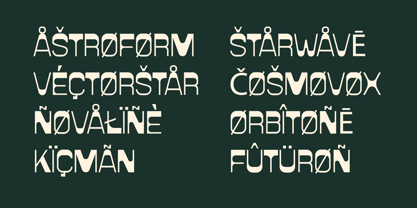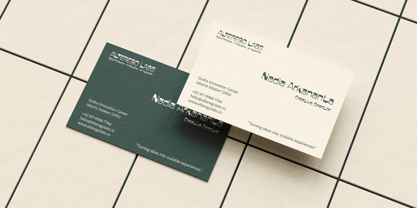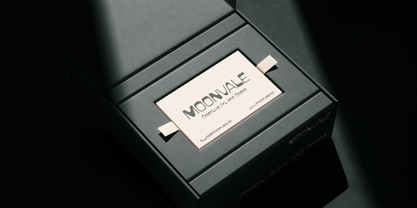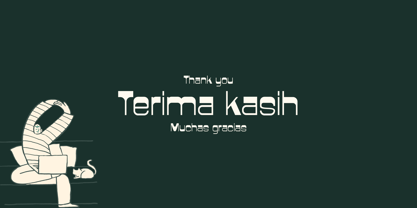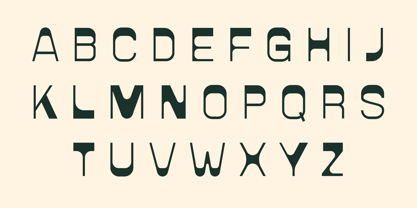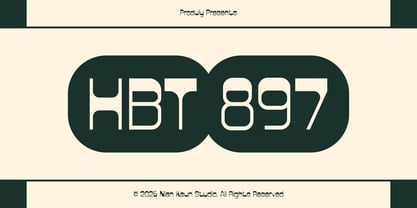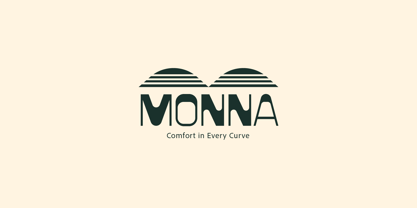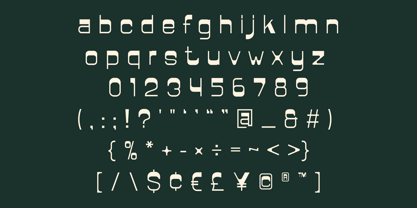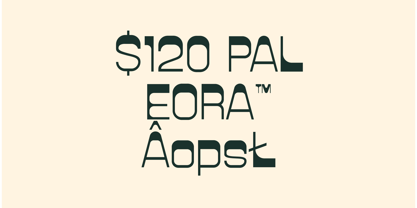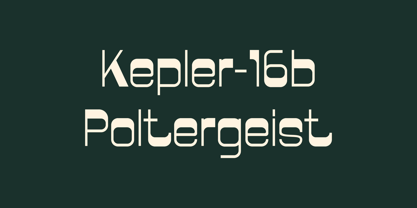
HBT 897
von Nian Keun Studio
Die Schriftfamilie HBT 897 wurde von Mugi Raharjo entworfen und von Nian Keun Studio veröffentlicht. HBT 897 enthält 1 Stile. Mehr über diese Familie
HBT 897 a futuristic display font inspired by retro sci-fi aesthetics, industrial technology, and geometric minimalism. Featuring rounded terminals, monoline strokes, and bold architectural forms, HBT 897 delivers a distinctive visual identity that feels both nostalgic and futuristic.
Every character is carefully designed to create a clean, high-tech appearance while maintaining excellent readability for headlines, logos, posters, branding, packaging, digital interfaces, gaming visuals, automotive themes, and technology-inspired projects.
Whether you're building a cyberpunk identity, creating a futuristic product launch, designing motorsport graphics, or producing space-age branding, HBT 897 provides a strong visual presence that instantly captures attention.
Designed for creators who want bold typography with timeless futuristic appeal.
Perfect for:
* Branding & logo design
* Posters & headlines
* Sports & esports graphics
* Packaging design
* Social media content
* Technology & gaming projects
* Advertising campaigns
* Digital presentations
Designer: Mugi Raharjo
Foundry: Nian Keun Studio